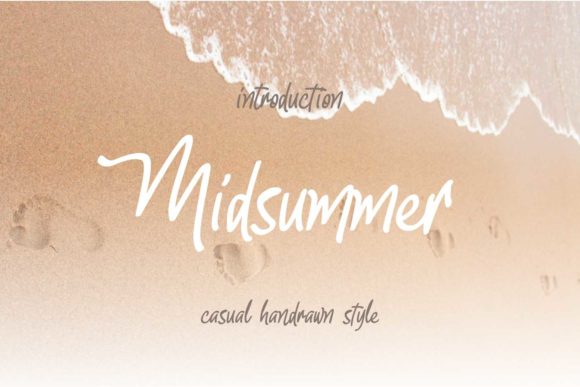
In the realm of digital artistry, where creativity reigns supreme, there exists a font destined to captivate your senses and ignite your imagination. Allow us to unveil Midsummer Font, an enthralling creation from the visionary mind of Nico Muslib, a script font that redefines elegance and sophistication. With its impeccable balance between timeless beauty and modern appeal, Midsummer Font stands tall among its peers, effortlessly enhancing the visual impact of any project it graces.
Unleash the captivating allure of Midsummer Font, where every curve and stroke exudes artistry and finesse. Its essence lies in the delicate flow of its lines, reminiscent of a gentle summer breeze gracefully sweeping through a field of wildflowers. This font evokes a sense of grace and elegance, seamlessly harmonizing with a myriad of designs, from formal invitations to personal branding.
Beyond its aesthetic charm, Midsummer Font possesses an inherent versatility that makes it an indispensable tool for any creative endeavor. Its carefully crafted characters lend themselves effortlessly to a diverse spectrum of applications, ranging from captivating logos and branding materials to eye-catching social media posts and marketing campaigns. Whether you seek to craft a visually stunning website, design a mesmerizing flyer, or simply add a touch of personal flair to your correspondence, Midsummer Font rises to the occasion, delivering excellence at every turn.
As you delve into the depths of Midsummer Font's versatility, you'll discover a world of boundless possibilities. It seamlessly adapts to a myriad of styles and themes, effortlessly enhancing the visual appeal of any project. Let your imagination soar as you explore the endless creative avenues that Midsummer Font unlocks, transforming your visions into tangible masterpieces.
But Midsummer Font's allure extends far beyond its aesthetic appeal. It possesses an uncanny ability to evoke emotions and establish connections. Its delicate strokes, reminiscent of a lover's whispered promises, instill a sense of intimacy and warmth. Its elegant curves, akin to the gentle caress of a summer breeze, create a welcoming ambiance that draws readers in. With every word crafted using Midsummer Font, you establish a profound bond with your audience, leaving an enduring impression that lingers long after the page is turned.
So embark on this extraordinary journey with Midsummer Font, letting its enchanting essence elevate your creative endeavors to unprecedented heights. Allow its timeless beauty to captivate hearts and minds, leaving an indelible mark on the world of design. Immerse yourself in the world of Midsummer Font and discover a boundless realm of creativity, where inspiration flows freely and your imagination knows no bounds.